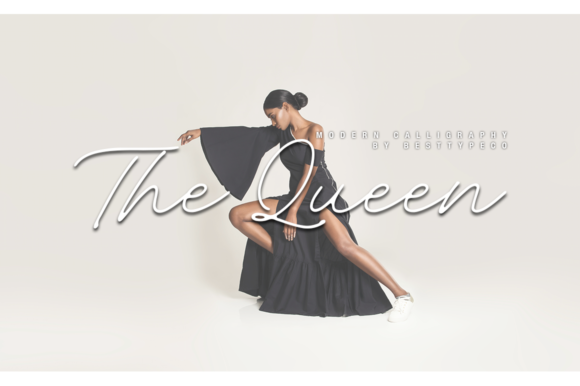
Embark on a Typographic Expedition with The Queen Font: A Majestic Script for Your Creative Kingdom
Within the realm of digital artistry, where words take visual form, there exists a font of extraordinary charm and elegance: The Queen Font. A creation of BennyDesigns, this script font is a testament to the power of calligraphy, effortlessly blending the beauty of handwritten strokes with the precision of digital craftsmanship.
Step into the world of The Queen Font and discover a universe of creative possibilities. With its flowing curves, delicate strokes, and regal presence, this font is the perfect choice for those seeking to make a statement. Whether you're crafting personalized greeting cards, designing captivating branding materials, or creating eye-catching posters, The Queen Font will elevate your designs to new heights of sophistication.
Unleash Your Inner Royalty: The Queen Font for Every Creative Endeavor
The Queen Font is not just a font; it's an invitation to let your creativity reign supreme. Its versatility knows no bounds, making it the ideal companion for a myriad of projects.
Compose heartfelt messages on greeting cards, adding a touch of elegance to every word. Create business cards that exude professionalism and leave a lasting impression. Transform your social media posts into works of art, captivating your audience with visually stunning quotes and announcements.
With The Queen Font, you hold the key to unlocking a world of creative expression. Let your imagination soar as you explore the endless possibilities that await you.
A Font Fit for a Queen: The Perfect Choice for Discerning Designers
The Queen Font is more than just a collection of letters; it's an embodiment of style and grace. Its timeless beauty transcends trends, ensuring that your designs will remain relevant and captivating for years to come.
If you seek a font that reflects your discerning taste and appreciation for the finer things in life, The Queen Font is your perfect match. Its regal presence will add a touch of sophistication to any project, whether you're designing for a personal or professional endeavor.